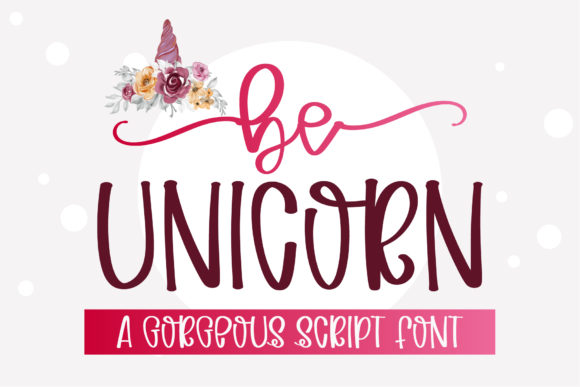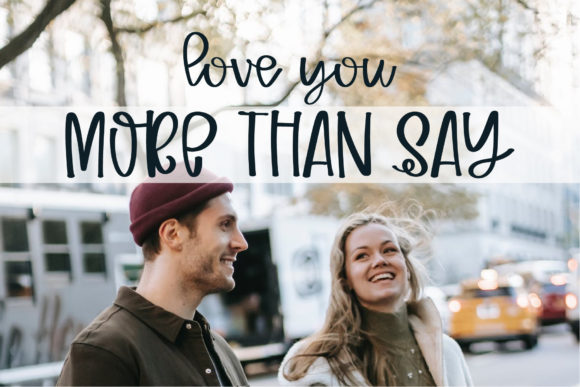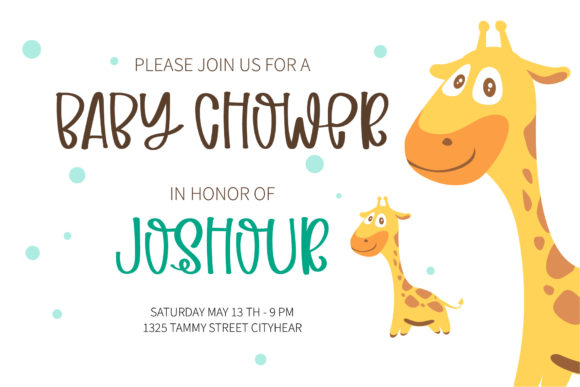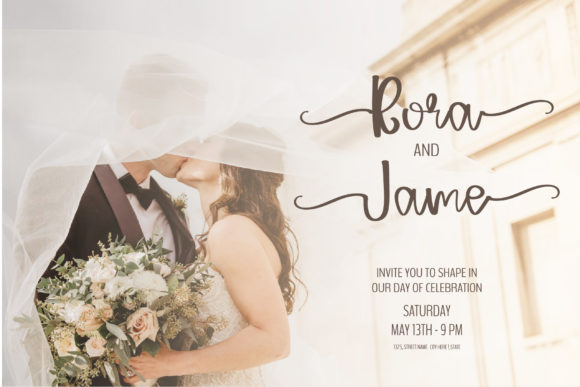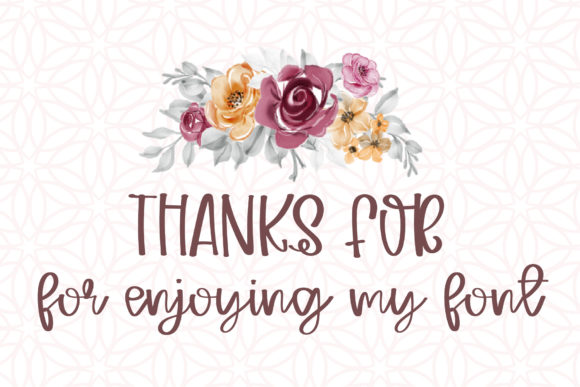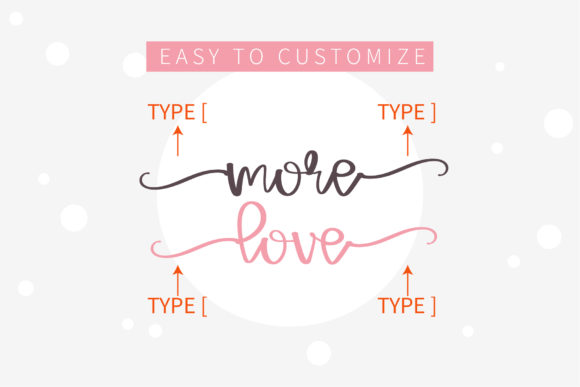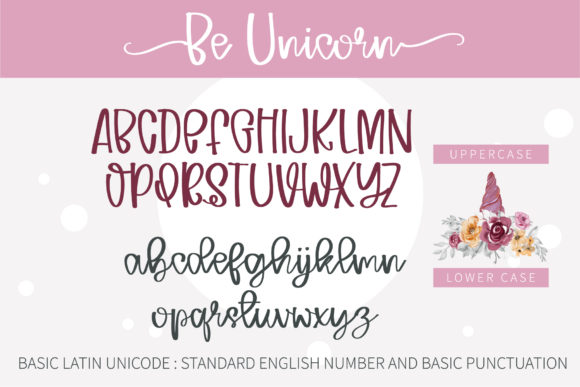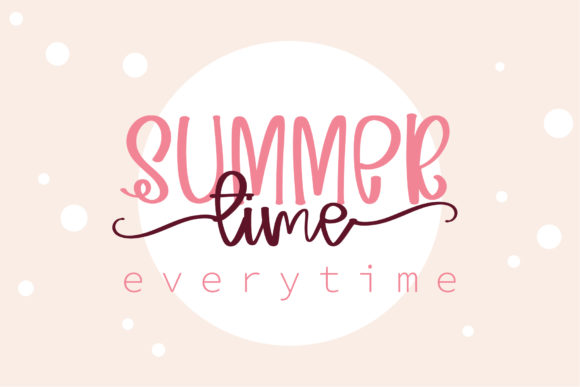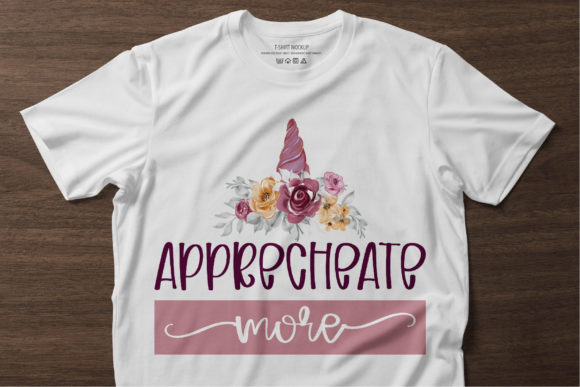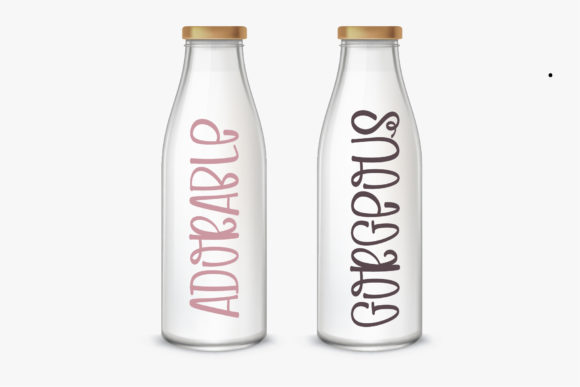
Be Unicorn Font
About Be Unicorn Font
Be Unicorn is a delightful and enchanting handwritten font that brings a sense of magic and charm to your design projects. Its friendly and approachable style instantly captivates and adds a touch of whimsy to any visual composition.
With a romantic theme running through its every stroke, Be Unicorn is perfect for a wide range of applications. Whether you’re creating greeting cards, wedding invitations, quotes, social media graphics, branding, or any other project that needs a charming and endearing touch, Be Unicorn will make your designs stand out.
The font’s handwritten nature imparts a personal and warm feel to your creations, evoking a sense of connection with your audience. Each character is carefully crafted to maintain a balance between legibility and creativity, ensuring that your messages are both readable and captivating.
Be Unicorn’s versatility makes it an excellent choice for various design projects. Its playful and magical vibe allows you to experiment with different styles and themes, making it a go-to font for creating eye-catching and memorable visuals.
Whether you’re crafting designs for children’s products, fantasy-themed artworks, feminine branding, or any project where a charming appearance is desired, Be Unicorn is your ideal companion. Its charm and whimsy add an element of fun and joy to your creations, leaving a lasting impression on your audience.
In conclusion, Be Unicorn is a beautiful and friendly handwritten font with a romantic theme. Its enchanting and whimsical style makes it perfect for a wide range of design projects, adding a touch of magic and charm to your creations. Whether used in greeting cards, wedding invitations, branding, or any other context, Be Unicorn brings warmth and a sense of connection to your designs. Embrace the magic of Be Unicorn and let it take your projects to new and captivating heights!